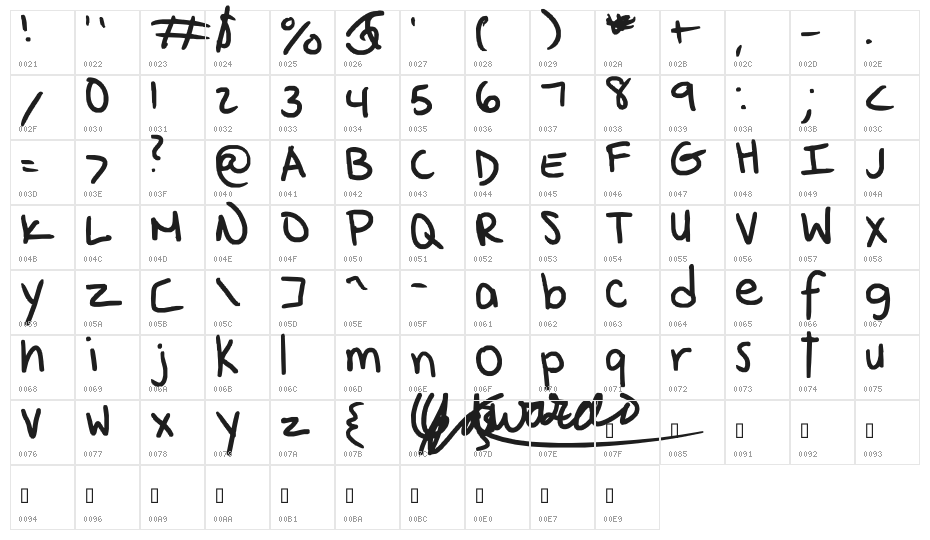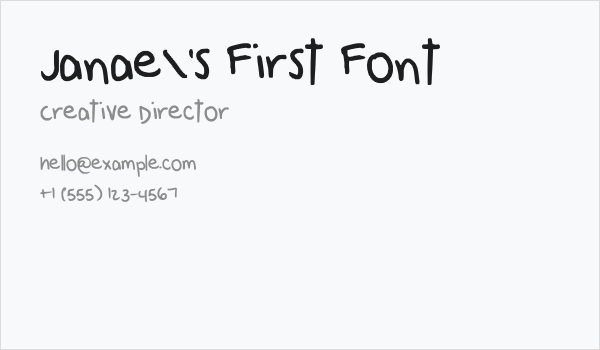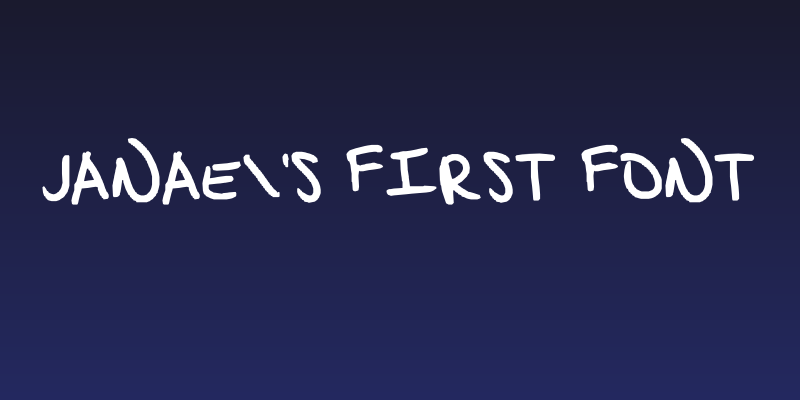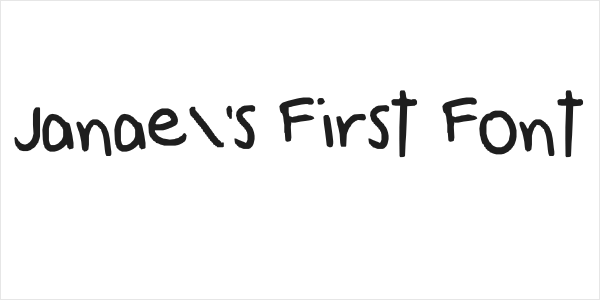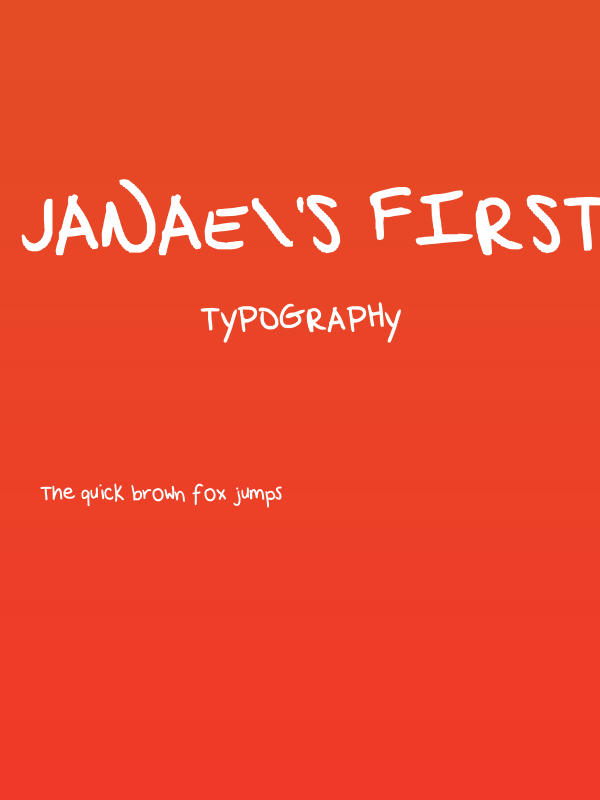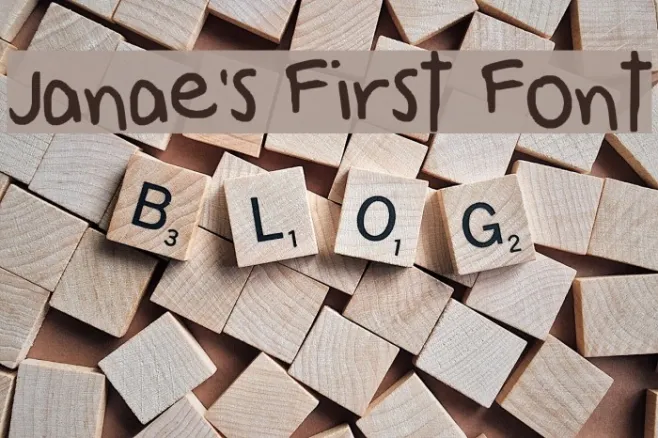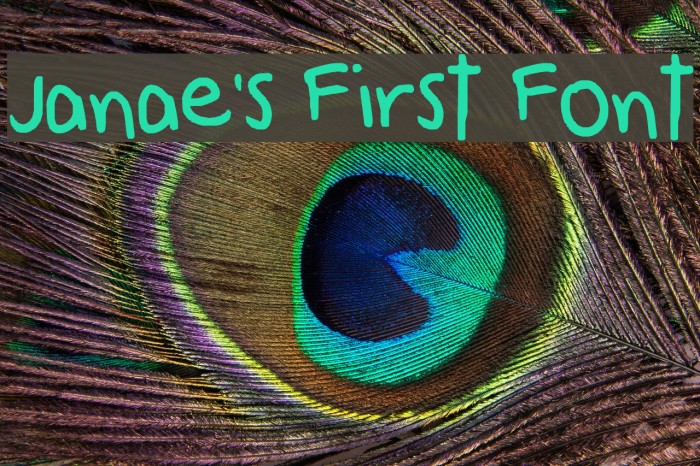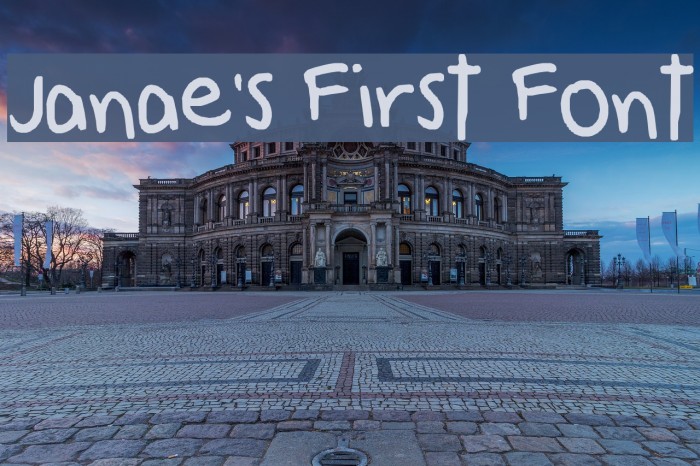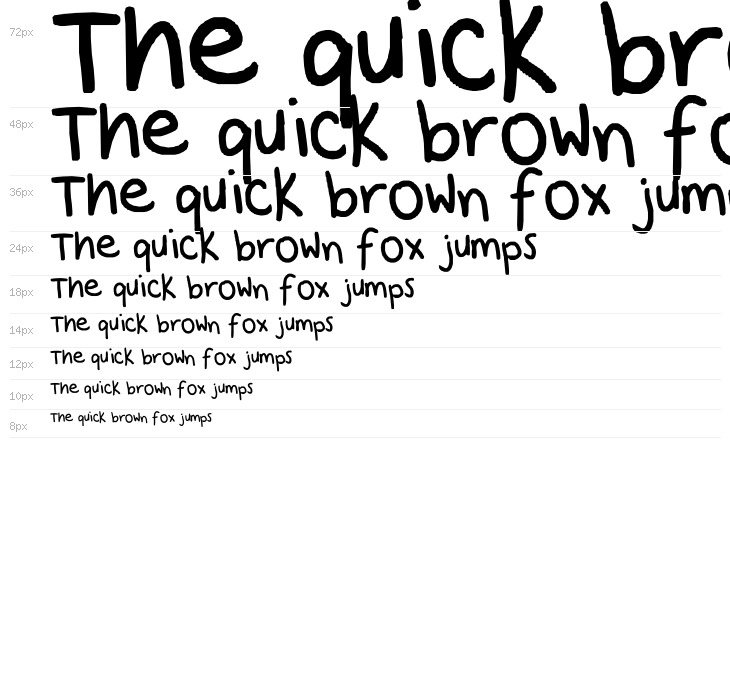
This font features a playful and informal handwritten style, characterized by its uneven strokes and casual appearance. The letters are slightly irregular, giving it a personal and approachable feel. The uppercase and lowercase letters maintain a consistent style, with rounded edges and a slightly tilted orientation, adding to its whimsical charm. The numbers and special characters follow the same informal design, making it suitable for projects that require a friendly and relaxed tone. The overall look is reminiscent of casual handwriting, perfect for creative and informal applications.
| Proposed Projects | Ideal for children's books, greeting cards, personal notes, and creative projects that require a friendly and approachable style. |